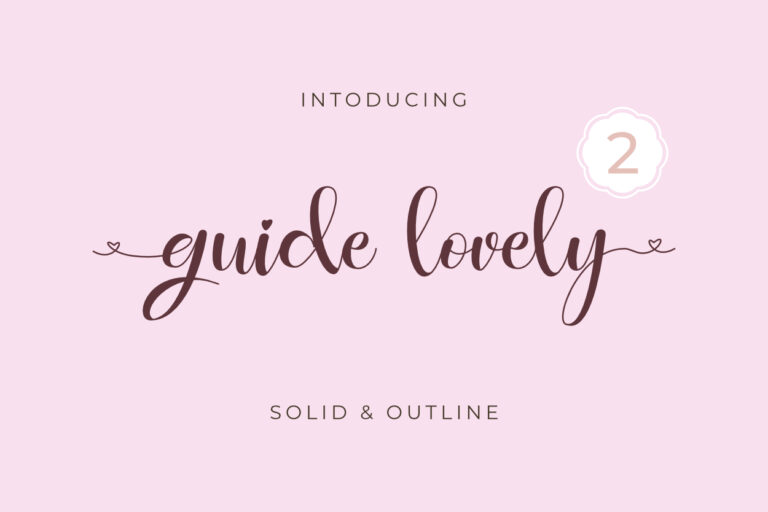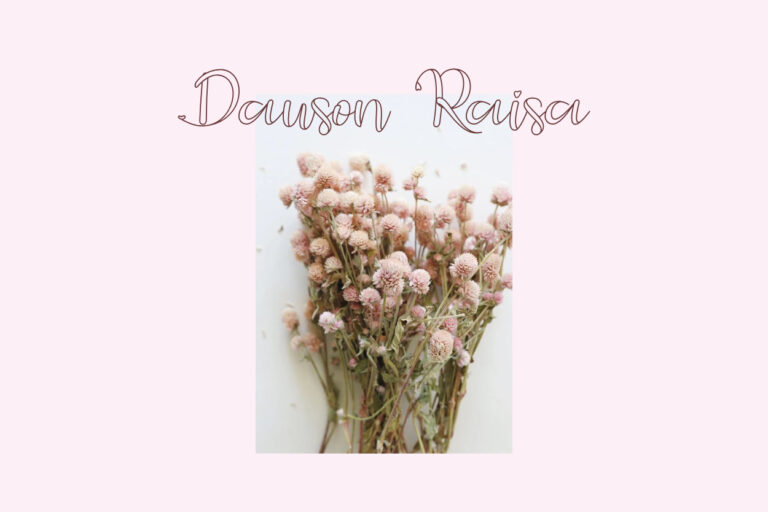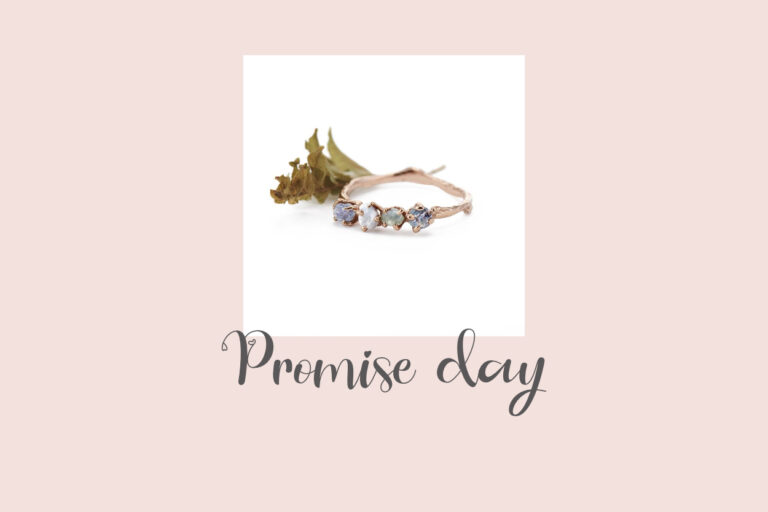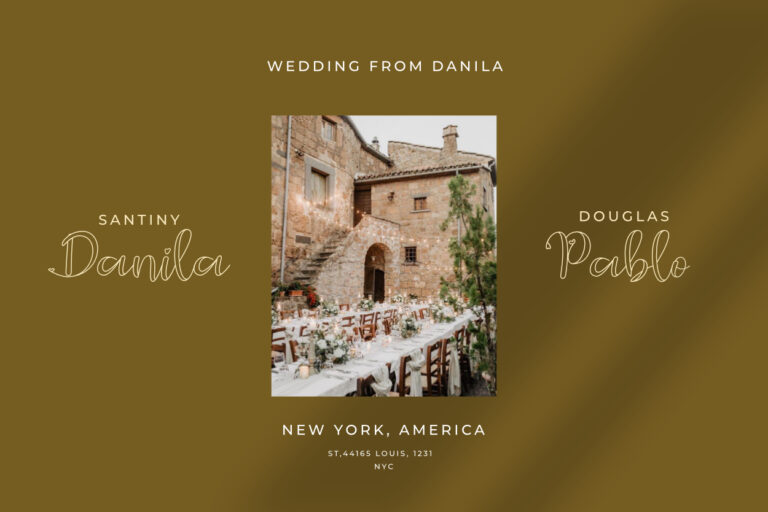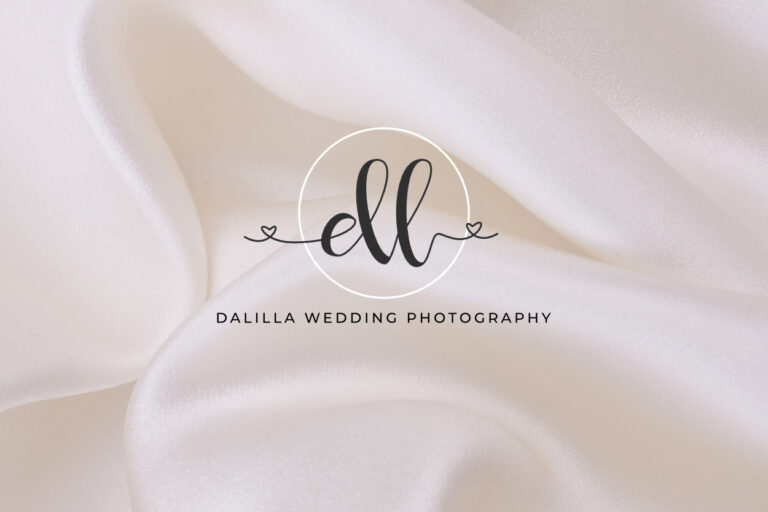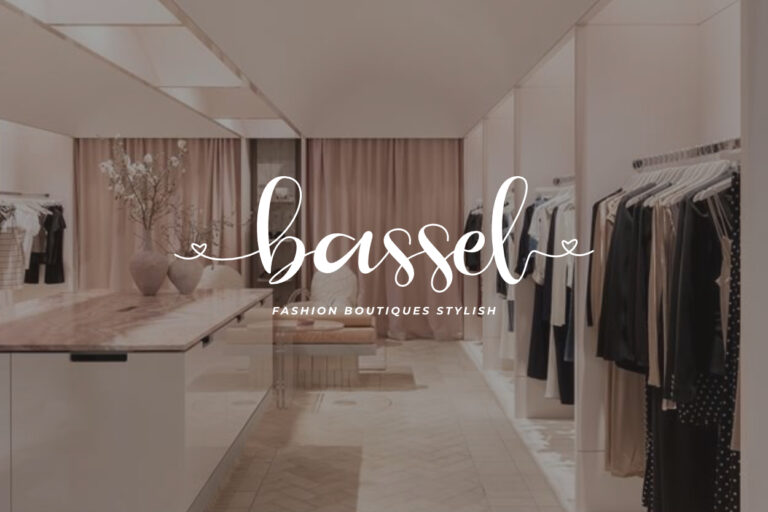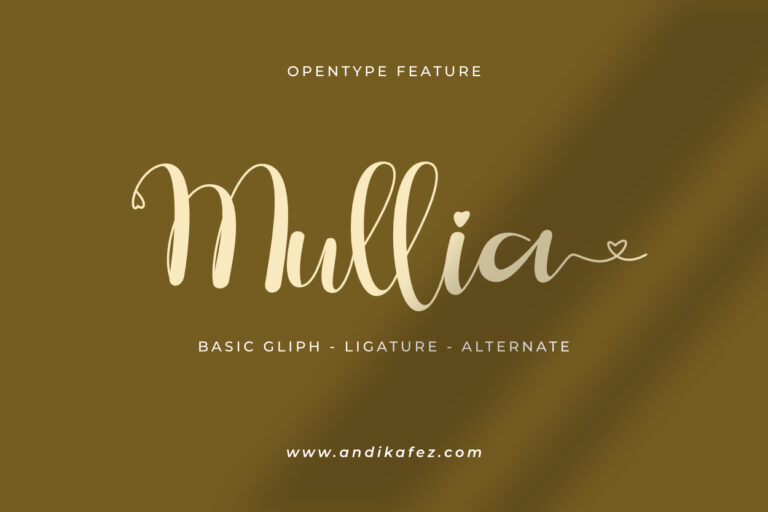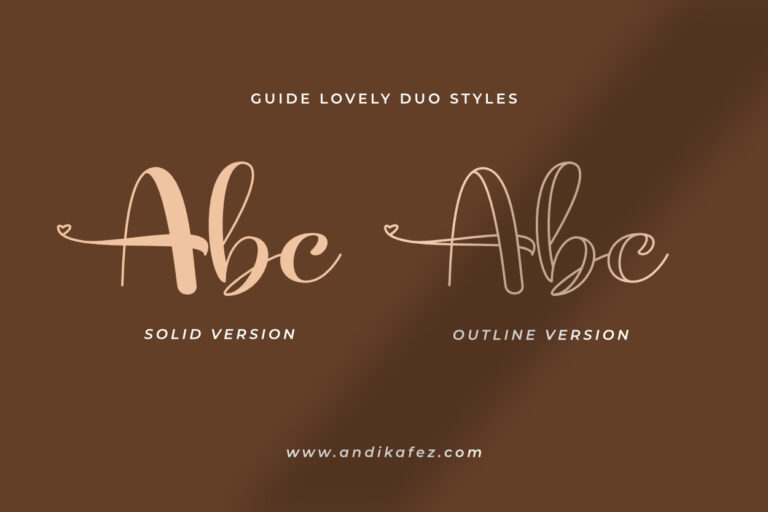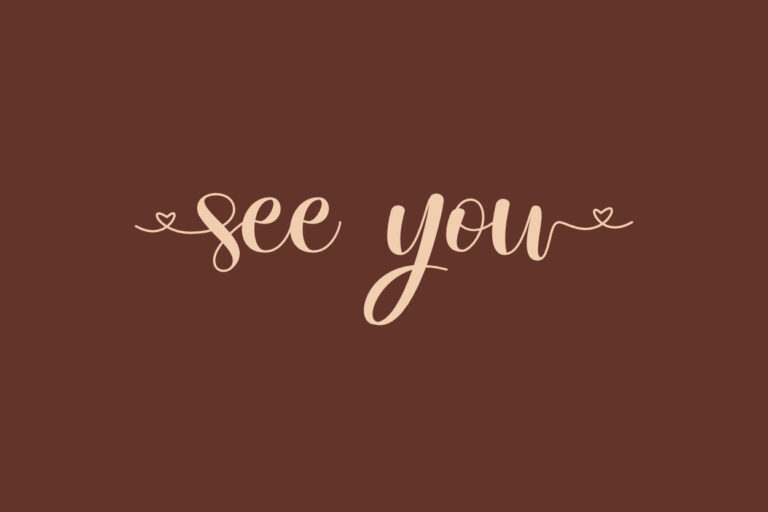
- GUIDE LOVELY SCRIPT FONT DUO
Guide Lovely script font duo is a match made in heaven. Fall in love with this new script font and its authentic feel and use it to create gorgeous wedding invitations, beautiful stationary art, eye-catching social media posts, and cute greeting cards.